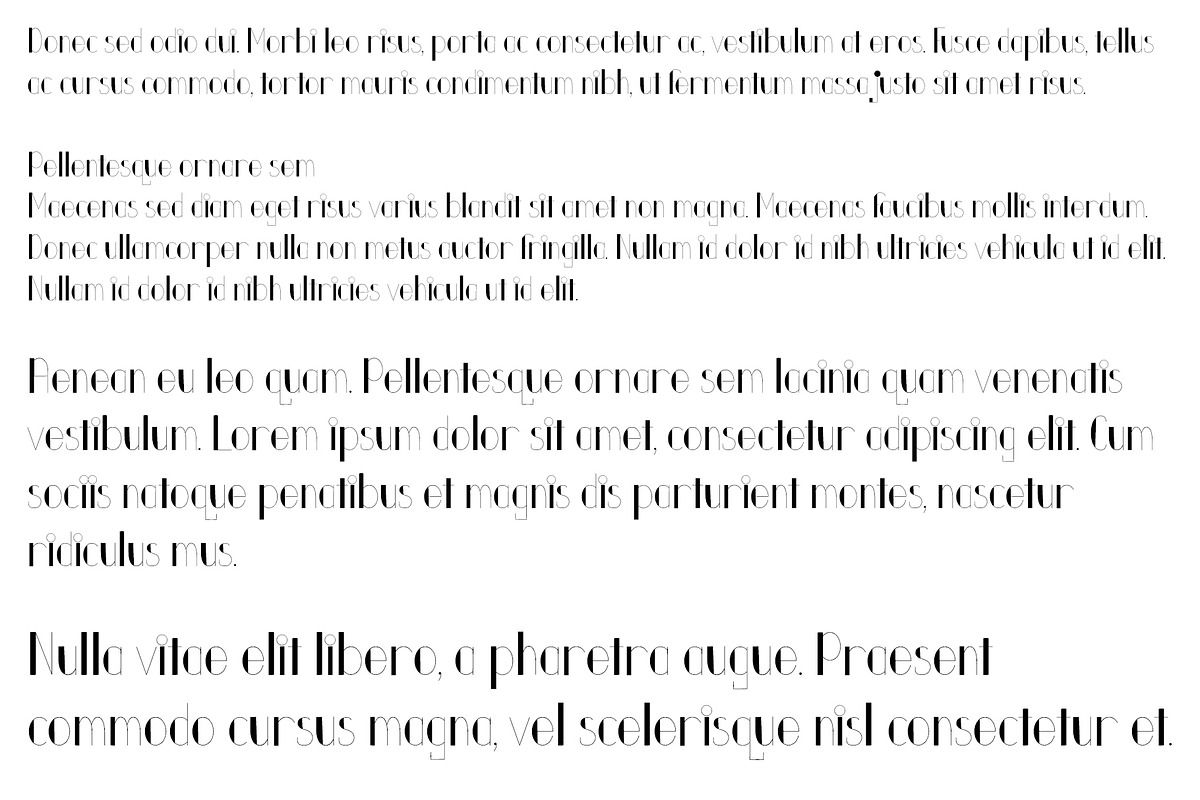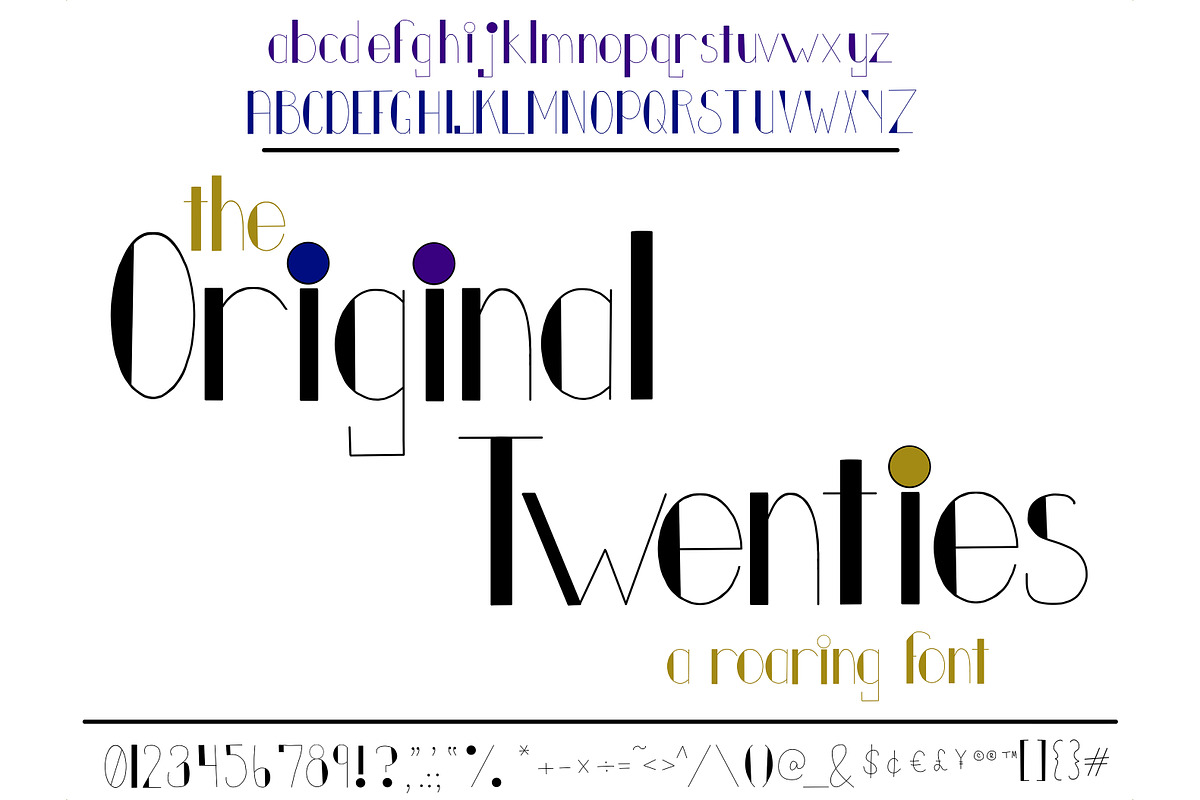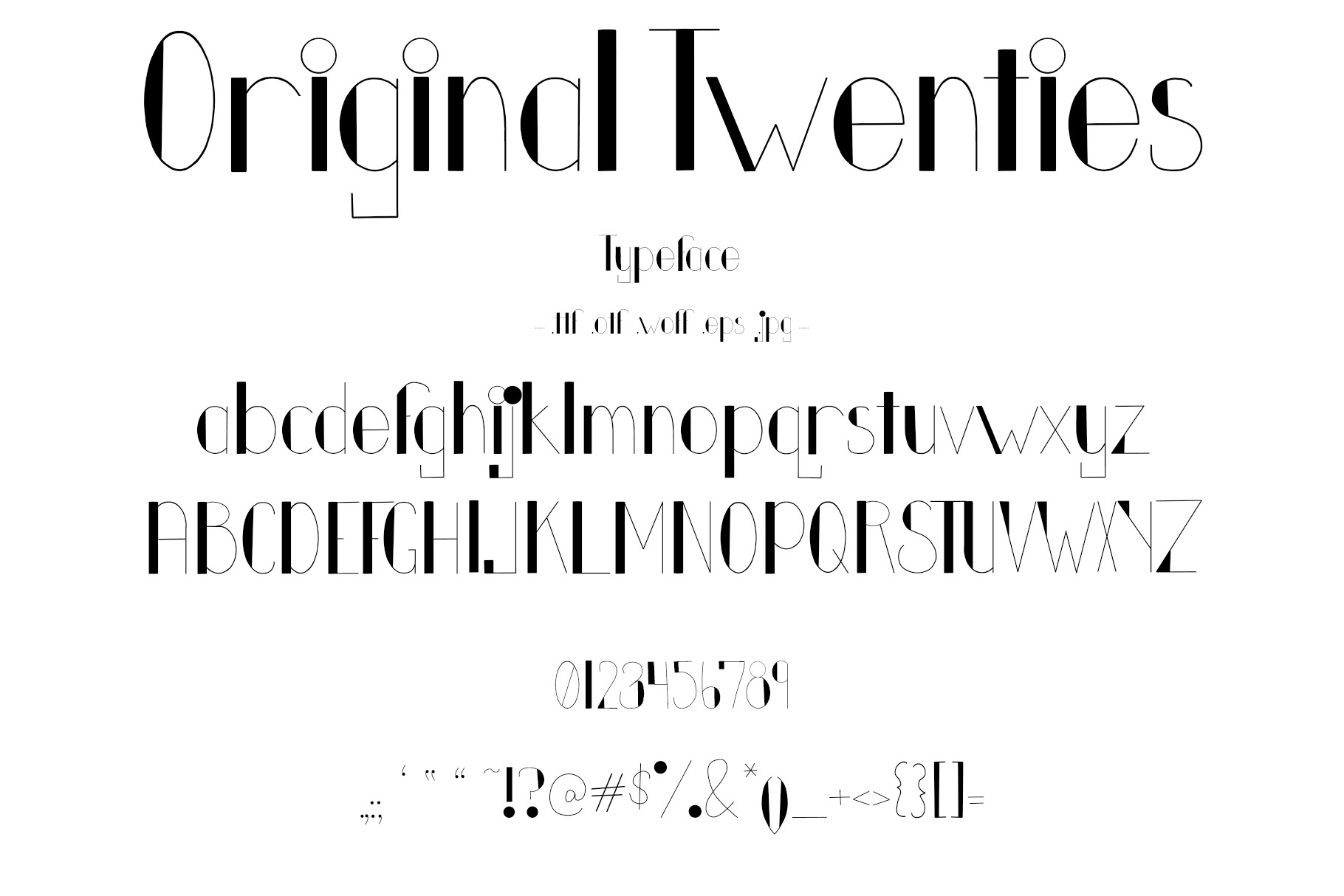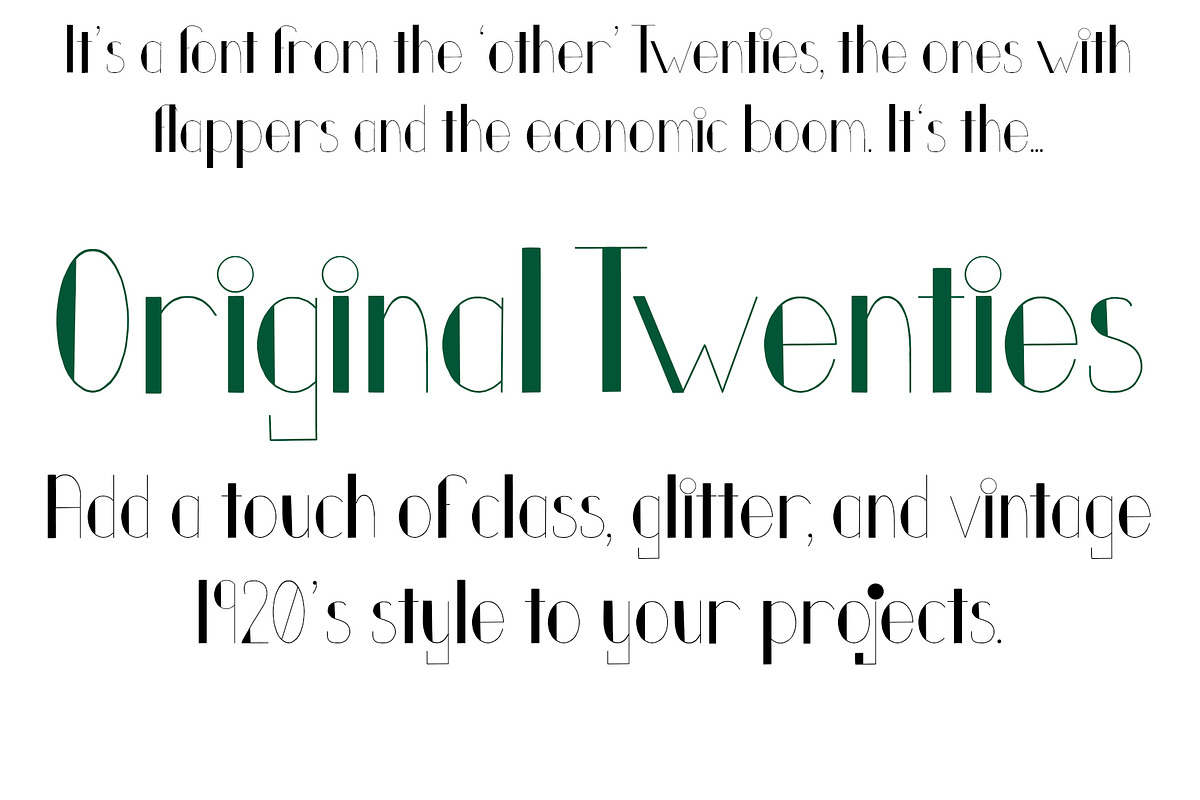
Font Original Twenties Art Deco
Hand drawn Art Deco font. Nineteen twenties theme typeface. Original Twenties typeface has a classy, glamorous 1920s style.